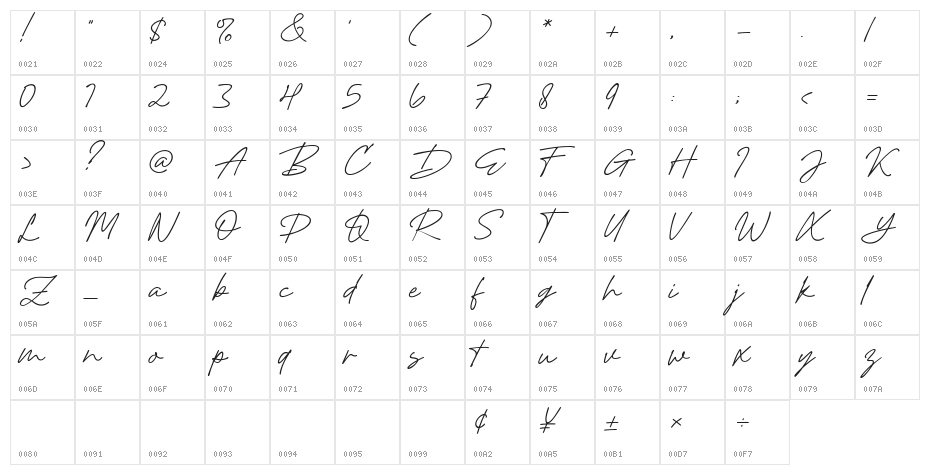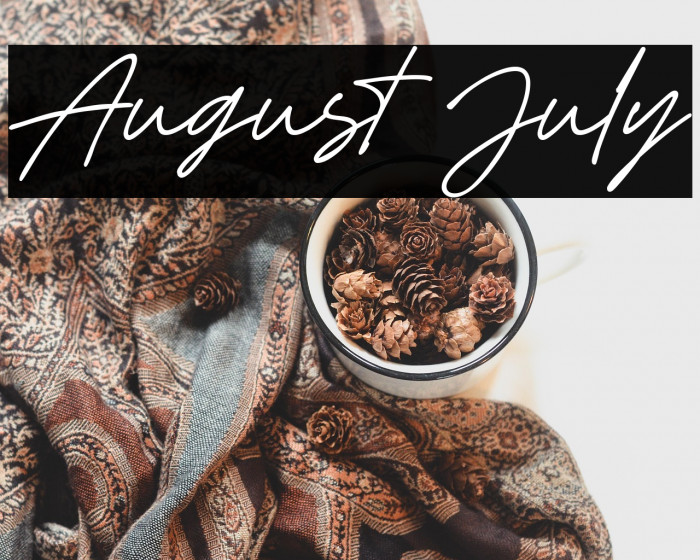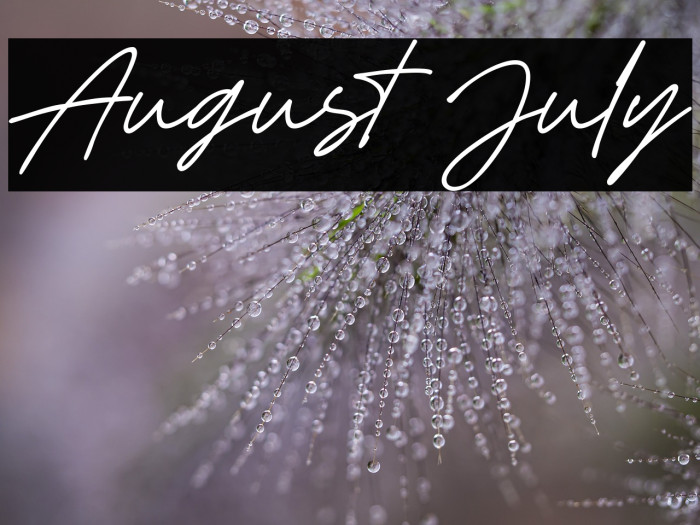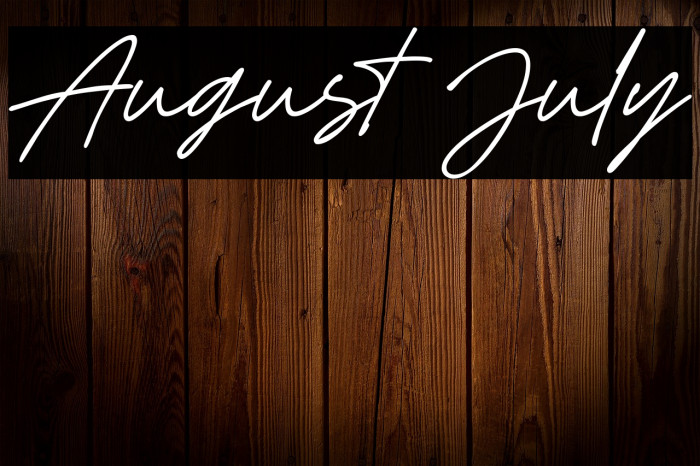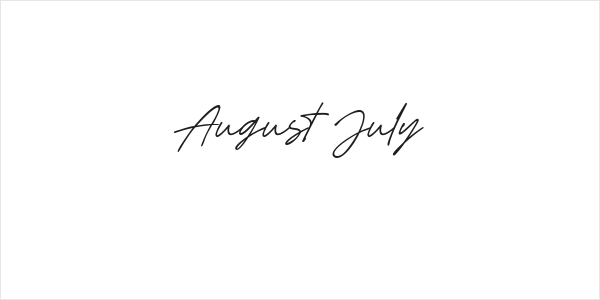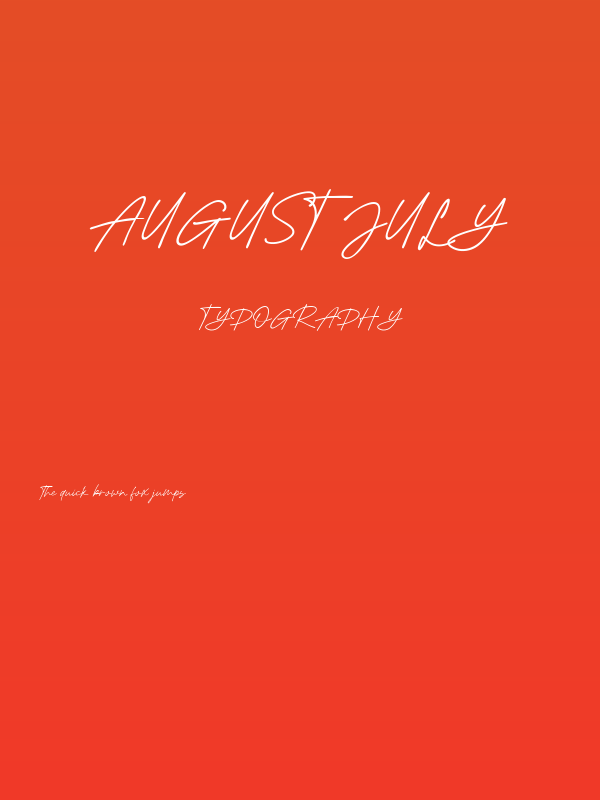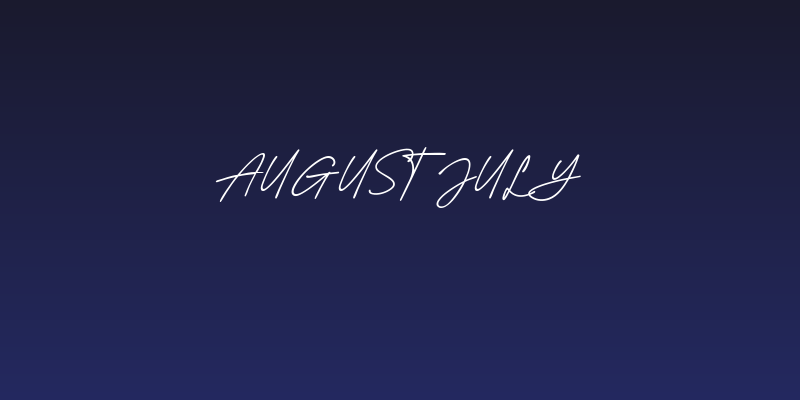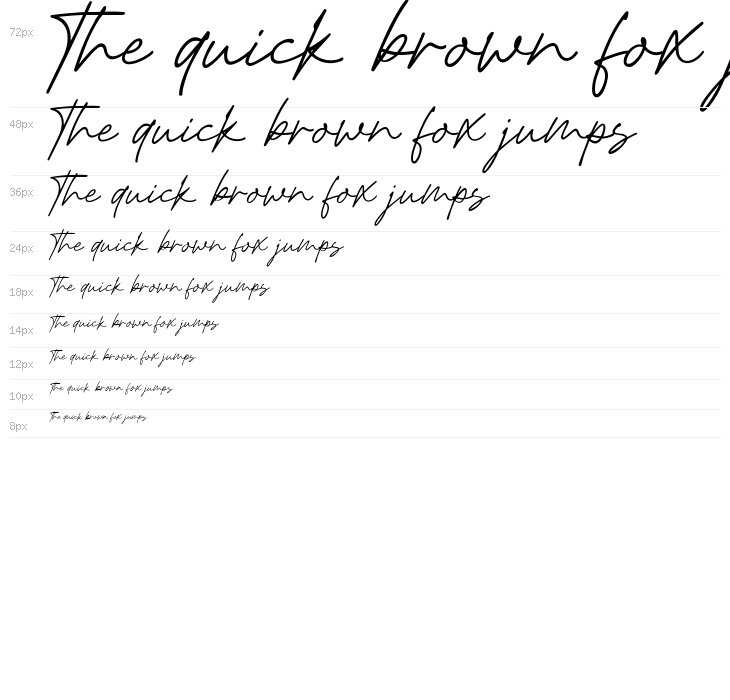
August July Font
August July Description
This font exudes a casual, handwritten style with a fluid and elegant script. The characters are connected in a smooth, flowing manner, giving it a natural and personal touch. The uppercase letters maintain a consistent height, while the lowercase letters vary slightly, adding to the organic feel. The numerals and special characters are crafted with the same attention to detail, ensuring a cohesive look across all elements. This font is perfect for projects that require a personal or informal tone, such as invitations, greeting cards, or personal branding.
| Overall Style | Casual, Elegant |
| Use Case | Headlines, Personal projects, Invitations |
| Proposed Projects | Ideal for invitations, greeting cards, personal branding, and informal communications. |